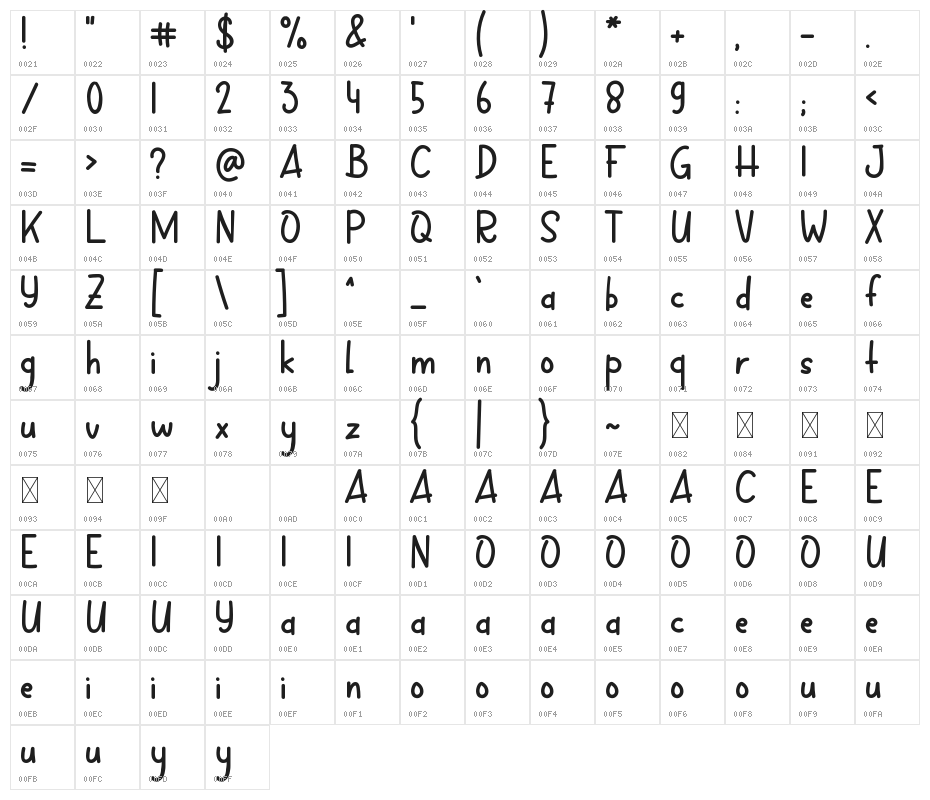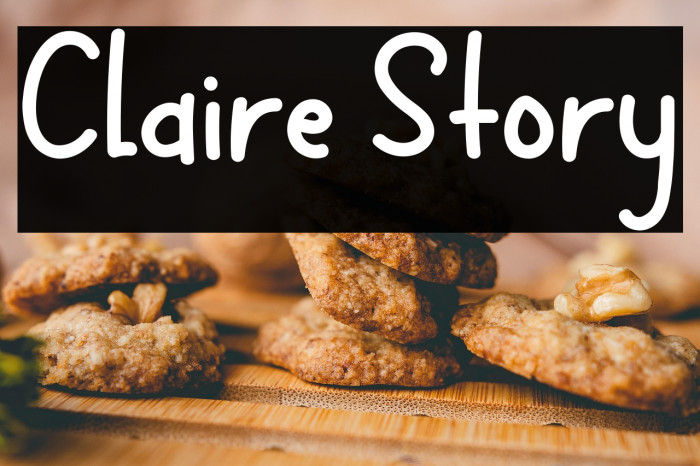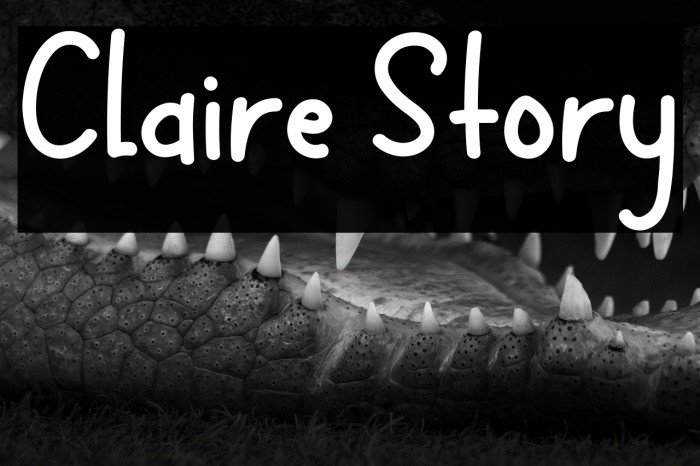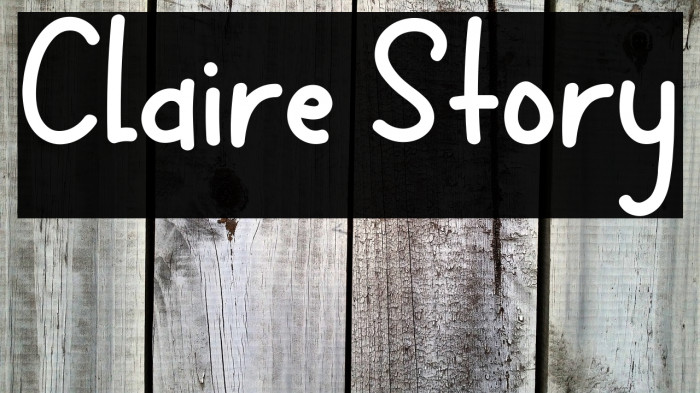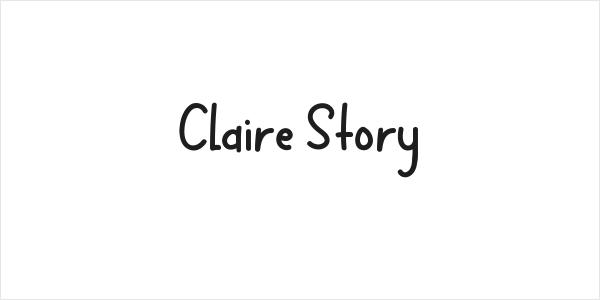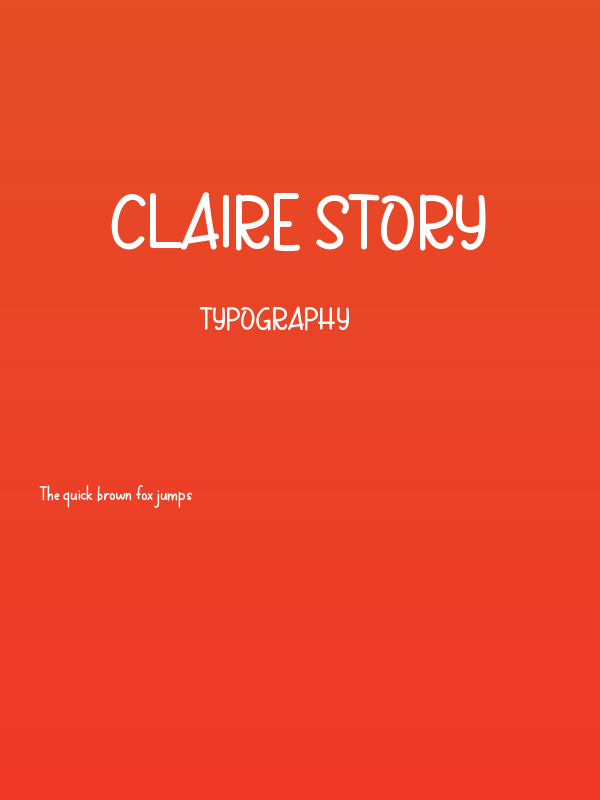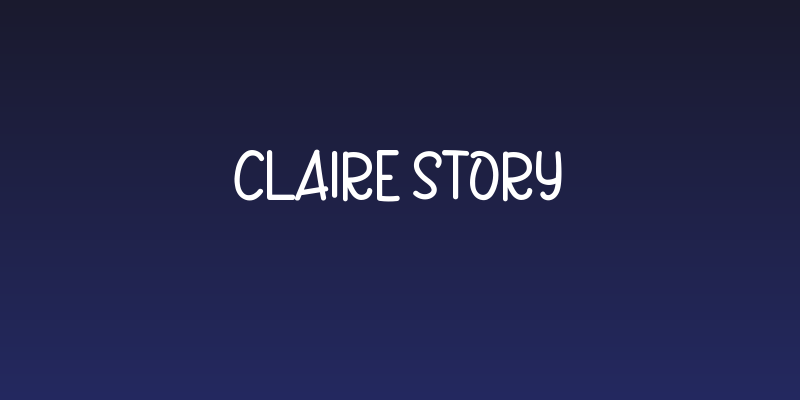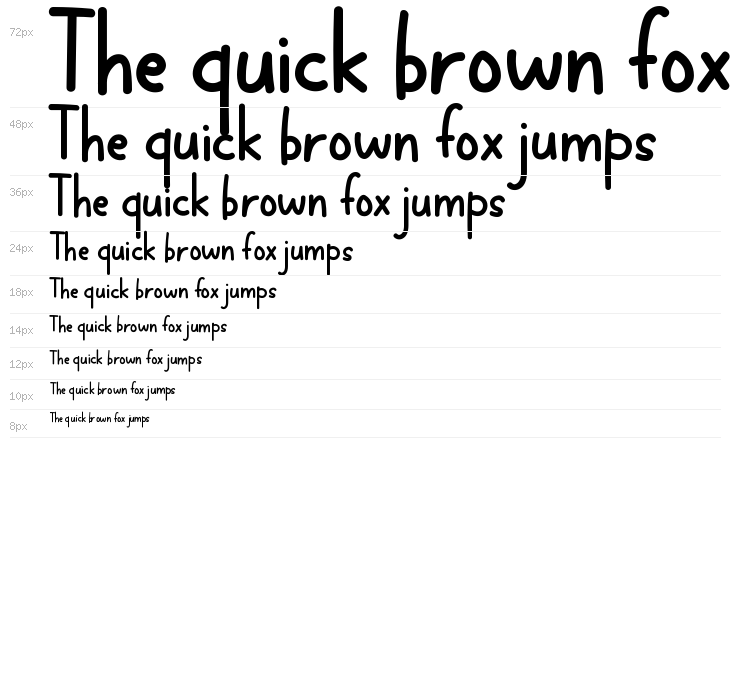
Claire Story Font
Claire Story Description
A playful, handwritten font with rounded edges and a casual style, suitable for informal and creative projects.
| Proposed Projects | Greeting cards, children's books, casual branding. |